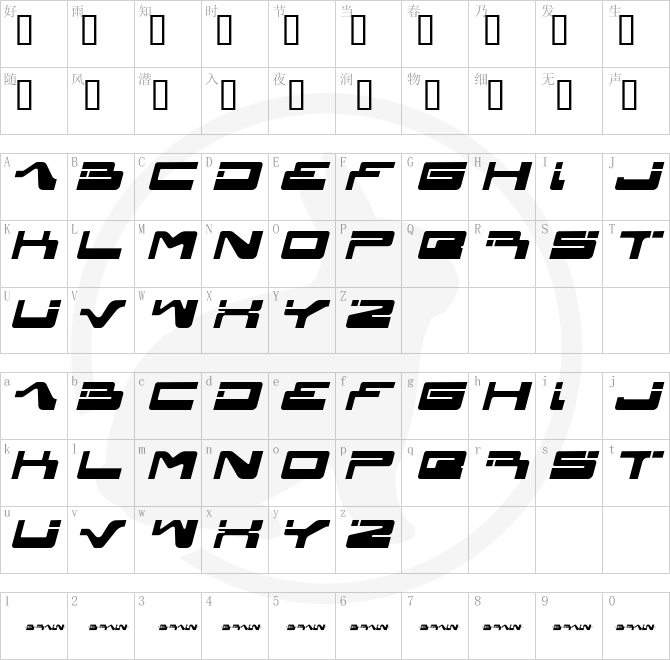
- Font Name:yagiza
yagiza.ttf is a very beautiful artistic font, yagiza.ttf is widely used in the design and printing of various books and pictures,yagiza.ttf has a strong visual impact,yagiza.ttf is a commonly used font in newspapers, magazines and books, and is used in posters, e-commerce Poster design, store design, logo design, font design and other fields.yagiza.